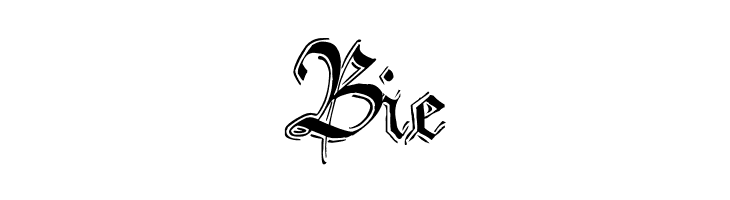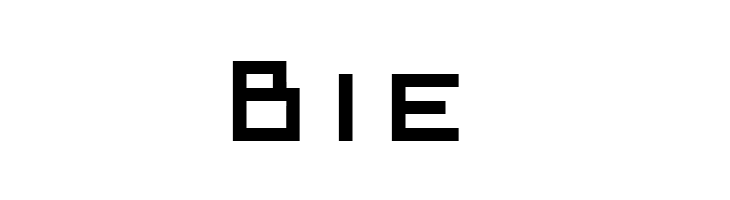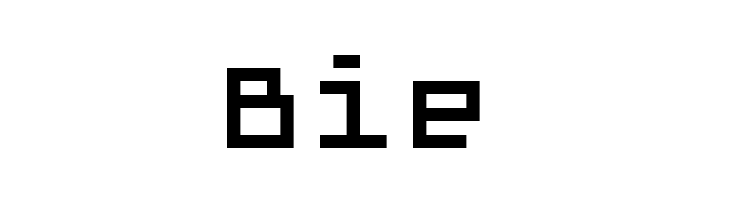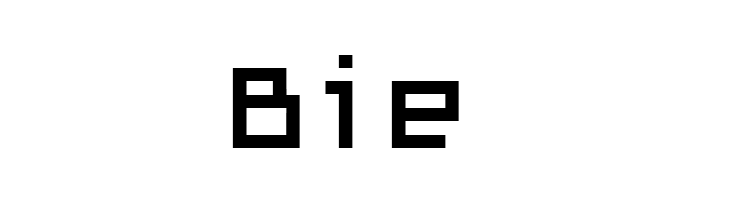
A bold, geometric font with a modern, digital aesthetic.
A bold, 3D block-style font with a retro, playful aesthetic.
A bold, playful script font with flowing, connected letters and a friendly appearance.
A bold, dripping font perfect for horror-themed designs.
A bold, dripping font perfect for horror themes.
A flowing, cursive font with elegant, connected strokes and a handwritten appearance.
A modern, high-contrast font with elegant, elongated letterforms.
A bold, playful font with rounded, smooth characters and a friendly appearance.
A bold slab serif font with a distinctive, geometric style.
A bold, retro-inspired font with geometric shapes and strong visual impact.
A bold, distressed font with a grungy, textured style.
A decorative and elegant script font with flowing, intricate letterforms.
A pixelated, monospaced font with a retro digital aesthetic.
A bold, playful font with a handwritten marker style.
A bold, expressive handwritten font with dynamic cursive letterforms.
A bold, distressed font with a rugged and energetic design.
A modern, elegant handwritten font with fluid strokes and dynamic style.
A bold, hand-drawn font with rugged, uneven strokes and a vintage feel.
A playful, bone-themed decorative font perfect for spooky designs.
A playful handwritten font with a modern, casual style.
A clean, modern font with geometric precision and minimalist design.
A bold, geometric font with high contrast and playful retro elements.
A bold, retro font with a shadow effect, perfect for vintage-themed designs.
A bold, geometric font with a three-dimensional shadow effect.